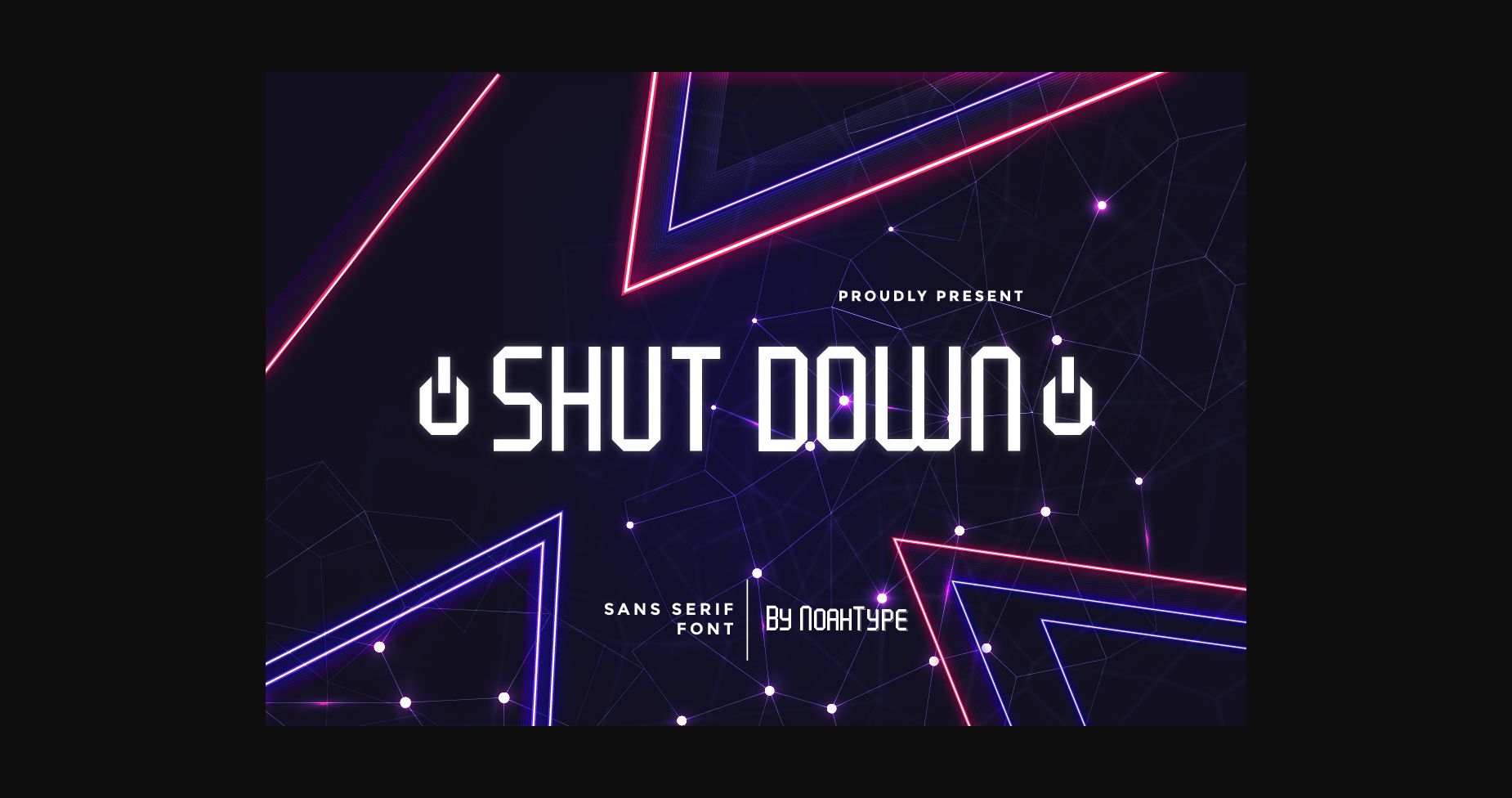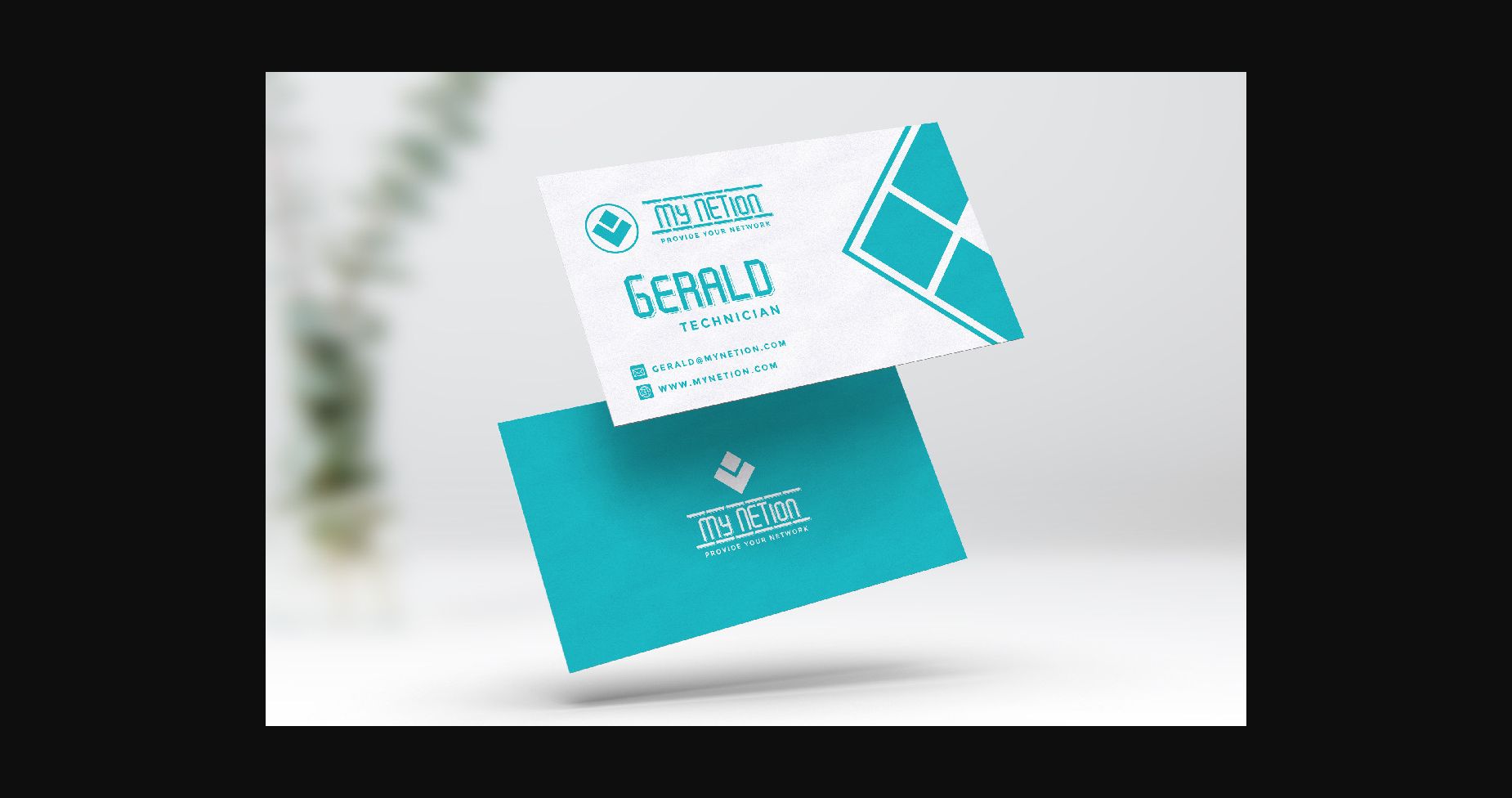
About Shut Down Font
Shut Down is a casual and modern sans serif font inspired by many startups and technology companies. The font has a unique modern style that will bring authentic and exclusive vibes into your beautiful designs!